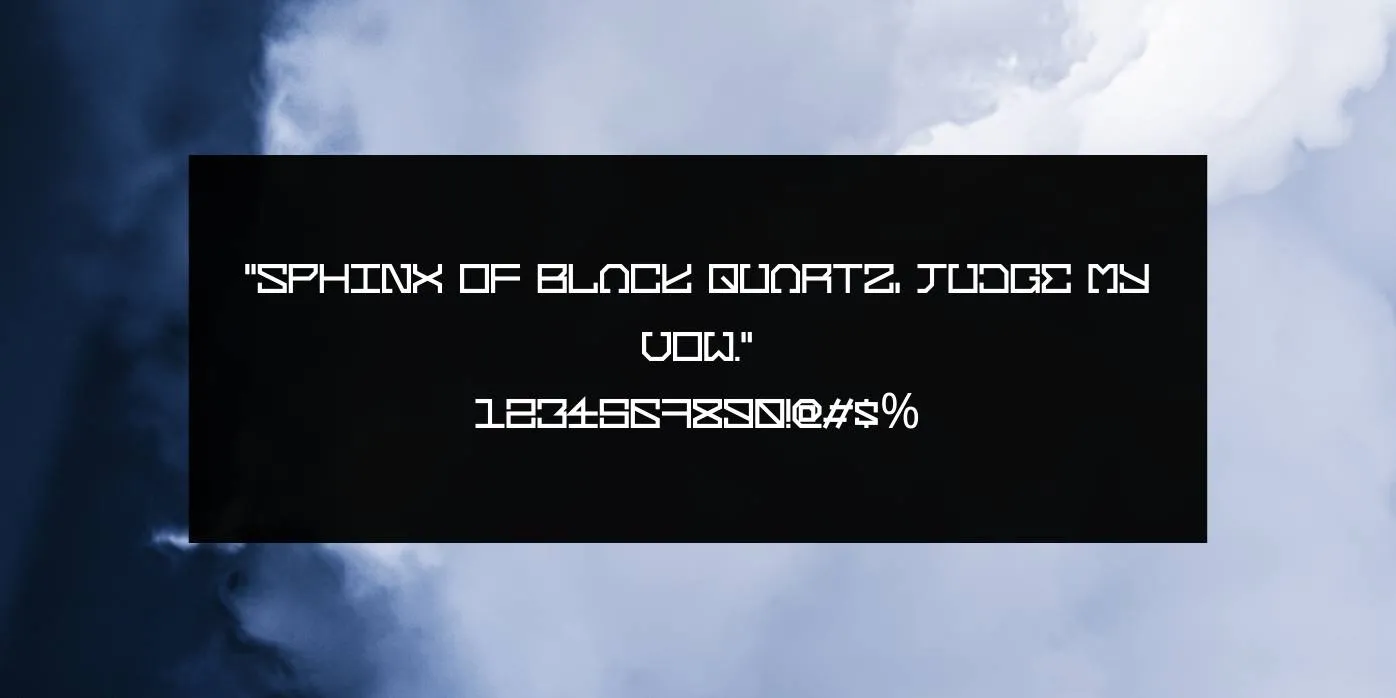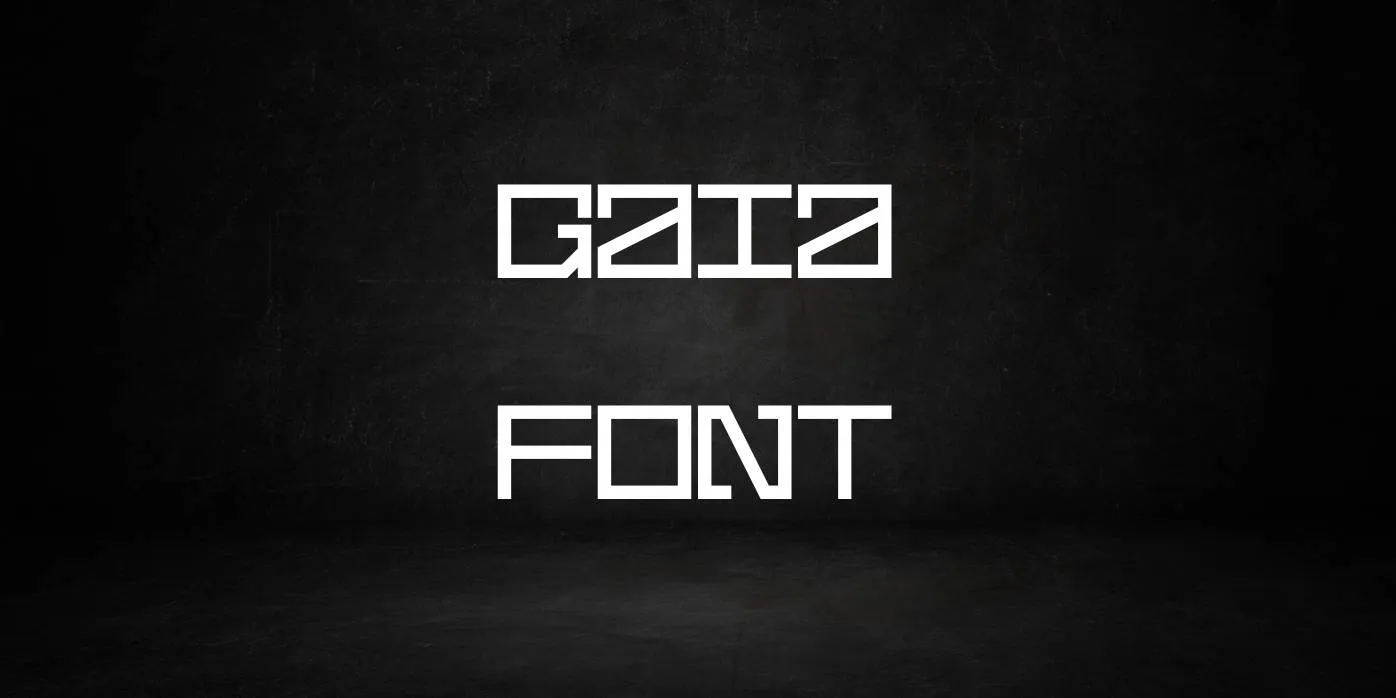
Gaia Font
Gaia Font is a geometric fancy typeface designed by Swiss typeface designer Hannes von Döhren in 2013. The family includes a total of 12 fonts in 6 weights (Light, Regular, Medium, Bold, Black, and Extra Black) with matching italics for each weight. This Font was inspired by the geometry of early twentieth-century typefaces. The font includes a variety of alternate characters and ligatures, as well as small caps, which make it ideal for use in headlines and display copy.